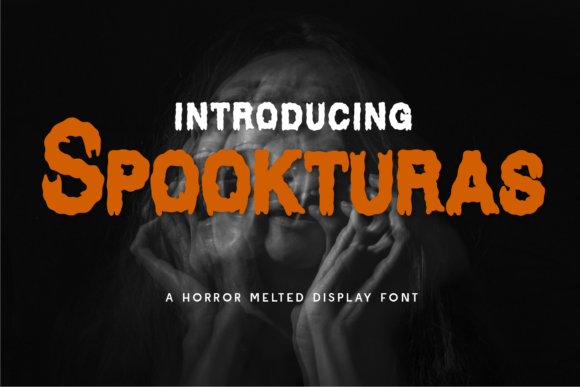
Spookturas Font: The Ultimate Horror-Melted Display Font for Spine-Chilling Designs
Are you looking for a font that can add a touch of horror and fear to your designs? Look no further than Spookturas, a dripping, deformed, and unsettling display font that is sure to send chills down your viewers’ spines. In this article, we’ll explore the features and benefits of Spookturas, and why it’s the perfect choice for your spooky designs.
What is Spookturas?
Spookturas is a horror-melted display font that is designed to evoke a sense of grunge, decay, and monstrous vibes. Its characters are melting off the screen, giving it a unique and unsettling texture that is perfect for Halloween promos, horror posters, scary movie titles, eerie invitations, or haunted house branding.
Why Choose Spookturas?
There are many reasons why Spookturas is the perfect choice for your spooky designs. Here are just a few:
- 🩸 Melting Horror Aesthetic: Perfect for Halloween, horror, and thriller themes, Spookturas has a unique and terrifying aesthetic that will grab the attention of your viewers.
- 👻 Creepy & Captivating: The oozing letterforms of Spookturas are designed to grab attention and amplify suspense, making it perfect for posters, titles, and branding.
- 🕯 Ideal for Posters, Titles & Branding: Spookturas instantly sets a sinister tone, making it perfect for any design that dares to be dark, bold, and haunting.
The Features of Spookturas
Spookturas has a range of features that make it the perfect choice for your spooky designs. Here are just a few:
- Dripping, Deformed Characters: The characters in Spookturas are dripping and deformed, giving it a unique and unsettling texture.
- Unsettling Texture: The texture of Spookturas is designed to evoke a sense of grunge and decay, making it perfect for horror and thriller themes.
- Melting Off the Screen: The characters in Spookturas appear to be melting off the screen, giving it a sense of movement and energy.
How to Use Spookturas
Spookturas is perfect for a range of design projects, including:
- Halloween Promos: Spookturas is perfect for Halloween promos, including invitations, posters, and social media graphics.
- Horror Posters: Spookturas is designed to evoke a sense of horror and fear, making it perfect for horror posters and movie titles.
- Scary Movie Titles: Spookturas is perfect for scary movie titles, adding a touch of horror and fear to your designs.
- Eerie Invitations: Spookturas is perfect for eerie invitations, including birthday invitations, party invitations, and more.
- Haunted House Branding: Spookturas is perfect for haunted house branding, including logos, signage, and more.
The Benefits of Using Spookturas
There are many benefits to using Spookturas in your designs. Here are just a few:
- Adds a Touch of Horror: Spookturas adds a touch of horror and fear to your designs, making it perfect for Halloween, horror, and thriller themes.
- Grabs Attention: The oozing letterforms of Spookturas grab attention and amplify suspense, making it perfect for posters, titles, and branding.
- Sets a Sinister Tone: Spookturas instantly sets a sinister tone, making it perfect for any design that dares to be dark, bold, and haunting.
Summon the Scream Factor with Spookturas
If you’re looking for a font that can add a touch of horror and fear to your designs, look no further than Spookturas. With its dripping, deformed characters and unsettling texture, Spookturas is the perfect choice for any design that dares to be dark, bold, and haunting.
In conclusion, Spookturas is the ultimate horror-melted display font for spine-chilling designs. With its unique and unsettling texture, Spookturas is perfect for Halloween promos, horror posters, scary movie titles, eerie invitations, or haunted house branding.
So if you’re looking for a font that can add a touch of horror and fear to your designs, look no further than Spookturas. Download it today and let your type bleed with horror. ☠️🎃